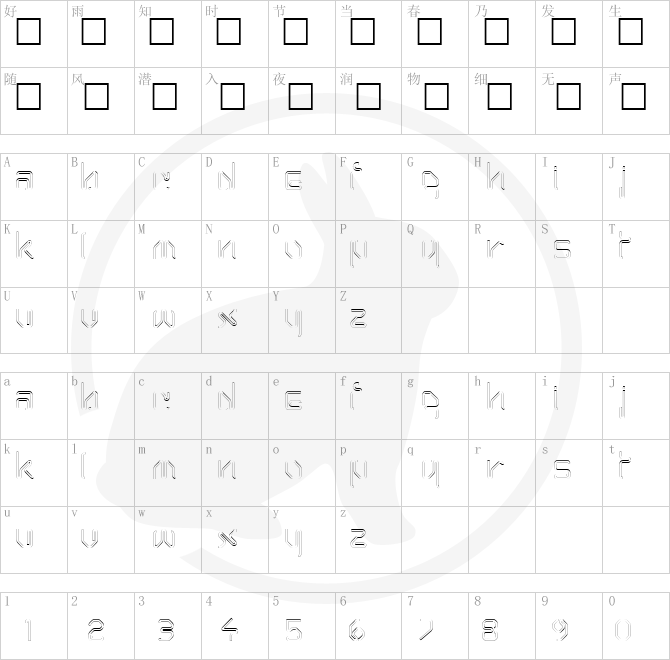
- Font Name:Hairpin Hairline
Hairpin-Hairline-Regular.ttf is a very beautiful artistic font, Hairpin-Hairline-Regular.ttf is widely used in the design and printing of various books and pictures,Hairpin-Hairline-Regular.ttf has a strong visual impact,Hairpin-Hairline-Regular.ttf is a commonly used font in newspapers, magazines and books, and is used in posters, e-commerce Poster design, store design, logo design, font design and other fields.Hairpin-Hairline-Regular.